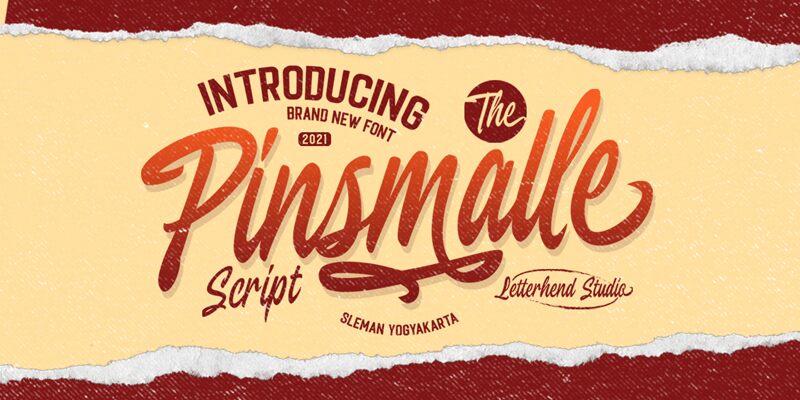
Pinsmalle is a charming, semi-light handwritten font designed by Letterhend Studio. Its condensed width and retro aesthetic make it perfect for a variety of creative projects, from vintage-inspired logos to eye-catching social media graphics. Use Pinsmalle to add a touch of whimsy to your next design endeavor - its delicate strokes and playful curves are sure to impress. Whether you're creating a website, designing packaging for a product, or crafting invitations for an event, Pinsmalle's unique style is sure to set your project apart. Give your designs the personal touch they deserve with this lovely semi-light font!